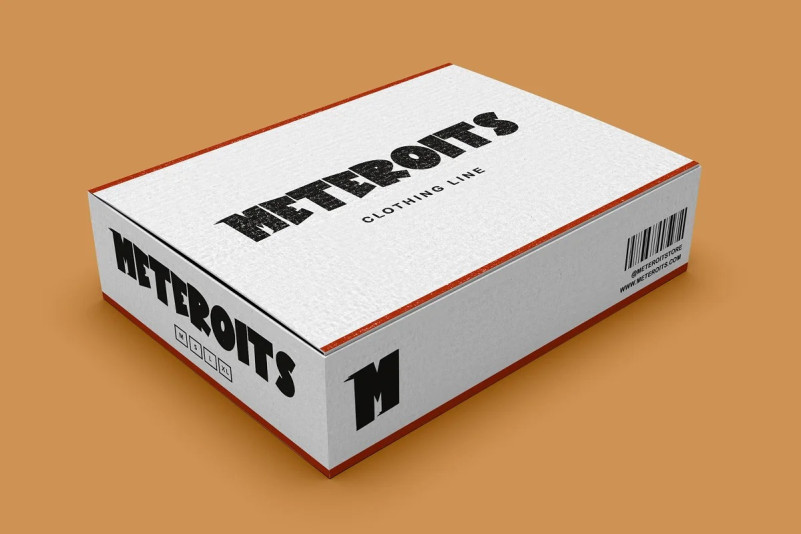
Meteor Fall Font
Meteor Fall – Comic Display Font is a font with distinctive handwritten characters perfect for branding projects, logos, wedding designs, media posts, advertisements, product packaging, product designs, labels, photography, watermarks, invitations, stationery, and any project who need handwritten dishes.